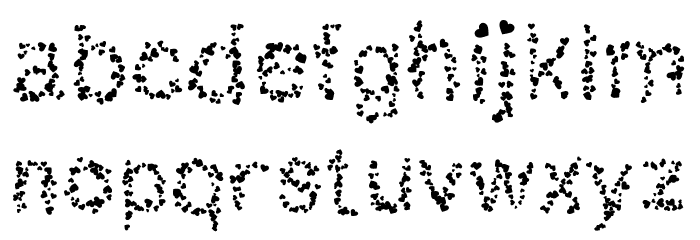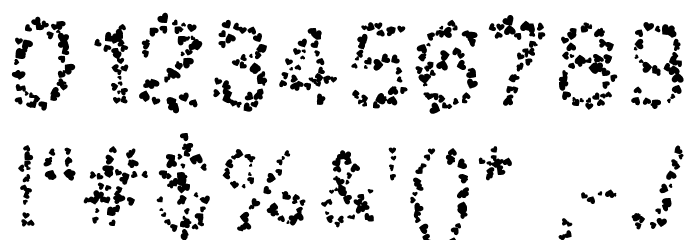
Sophiahearts Font
This font features a unique design where each character is composed of small, irregularly shaped dots, creating a playful and textured appearance. The letters maintain a consistent size and shape, ensuring readability despite the unconventional style. The uppercase and lowercase letters, as well as numbers and special characters, all follow this dotted pattern, giving the font a cohesive look. This design is particularly eye-catching and can add a whimsical touch to any project. The spacing between characters is normal, allowing for clear distinction between each letter and symbol.
A playful, dotted font with a textured appearance.
- Font: Sophiahearts
- Proposed Projects: Ideal for children's books, playful branding, party invitations, and creative posters.